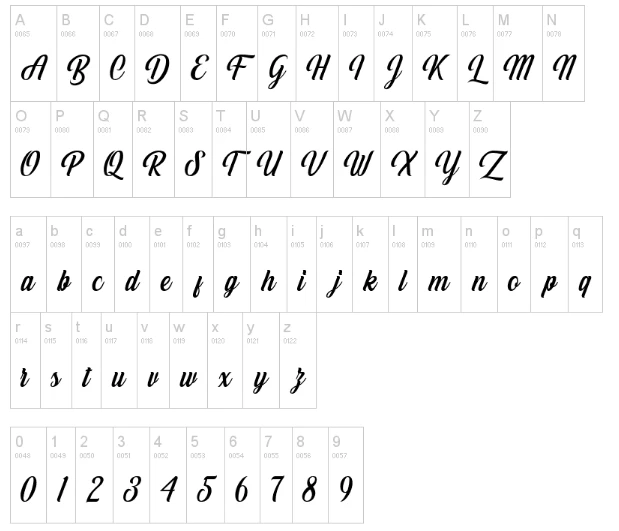
White Smith Script Font is a calligraphy and script font that can be used to start a fresh day. It’s a soft and lovely font with a link to the upper portion of the letter; it’s something different but really lovely, luxurious, and appealing. Hanzel Studio created it and shared it. The Font was created using a combination of contemporary fashion and streetwear and a hand lettering approach.
Logos, handwritten quotations, product packaging, headlines, posters, products, social media, and greeting cards are all good candidates for this Font. This Font can be used on any form of chocolate packaging. You may also put it on the cover of any type of book where a touch of aesthetic is required.